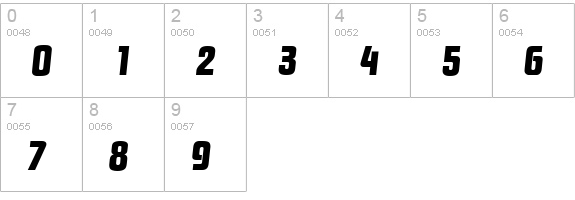
PasadenaSerial-Xbold-Italic is a distinctive, italic variant in the PasadenaSerial typeface family \xE2\x80\x94 well suited to design and typography projects.
Introducing the exquisite PasadenaSerial-Xbold-Italic font, a stunning display of elegance and sophistication. This bold and italic typeface exudes a sense of modernity and creativity, making it perfect for adding a touch of flair to any design project. With its sleek lines and distinctive curves, PasadenaSerial-Xbold-Italic demands attention and leaves a lasting impression. And the best part? PasadenaSerial-Xbold-Italic is available for free download at FontsMarket.com! That's right, you can easily access this captivating font at no cost, allowing you to enhance your creations without breaking the bank. Whether you're designing a logo, crafting a poster, or working on a website, PasadenaSerial-Xbold-Italic is sure to elevate your work to new heights. Don't miss out on this fantastic opportunity to enhance your design projects with the exquisite PasadenaSerial-Xbold-Italic font. Download it for free today and unleash your creativity like never before!